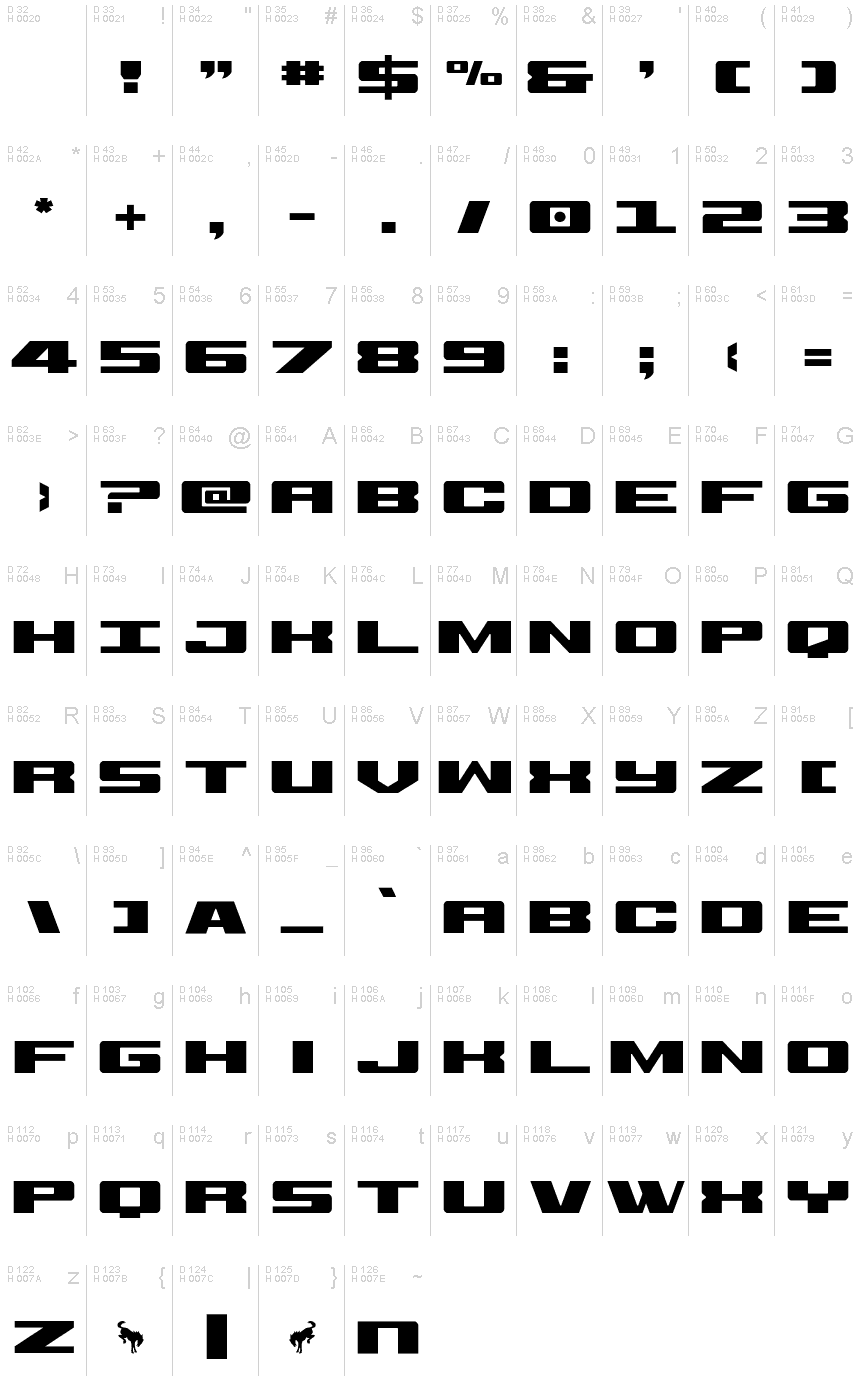
Buckin' Bronc Spaced
Buckin' Bronc Spaced erupts with a techno flair that demands attention. Designed by the innovative Iconian Fonts, this extra-bold, extra-expanded member of the Buckin' Bronc family is a display font that embodies strength and contemporary edge. Its commanding presence makes it a perfect choice for projects seeking to stand out—from eye-catching advertising campaigns to dynamic digital media.
The unique spacing in this character set ensures clarity and readability, while its robust design injects an unmistakable personality into every word. Whether you're crafting bold headlines or looking to add a modern twist to logos and branding, Buckin' Bronc Spaced is engineered to deliver impact where it counts.